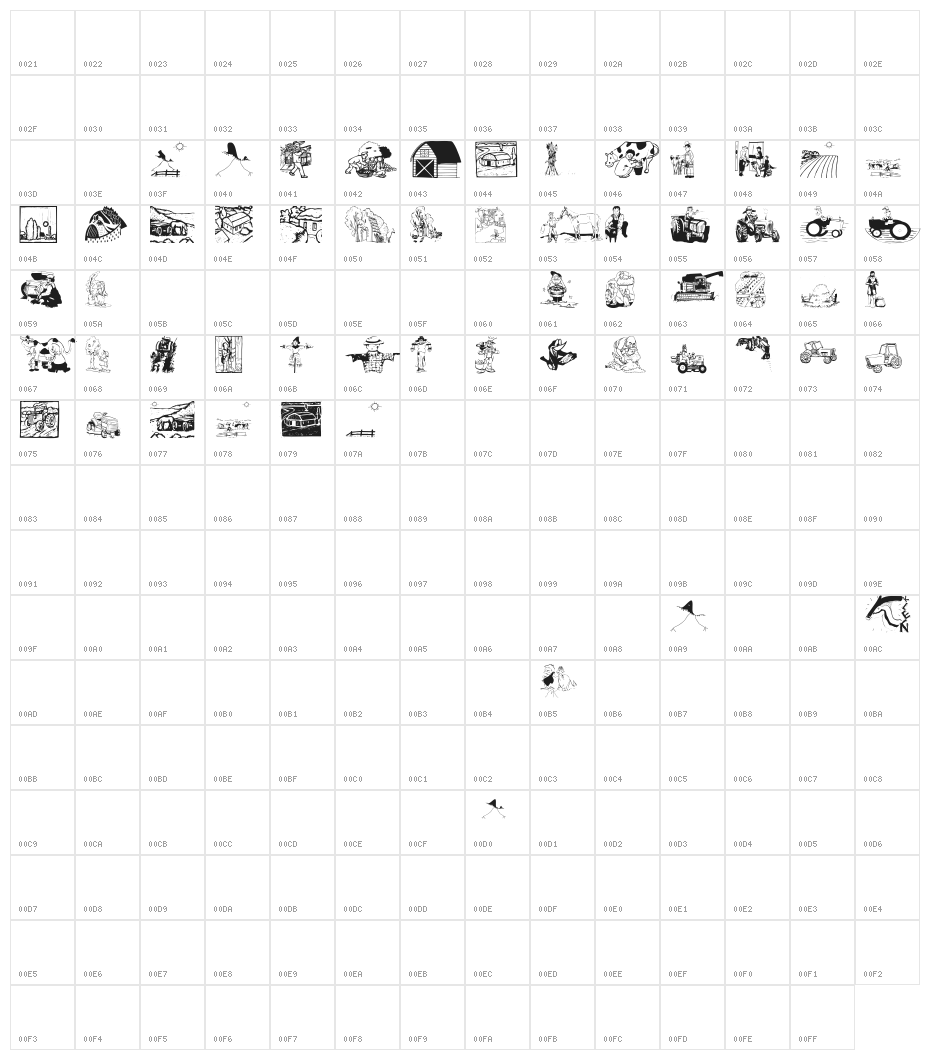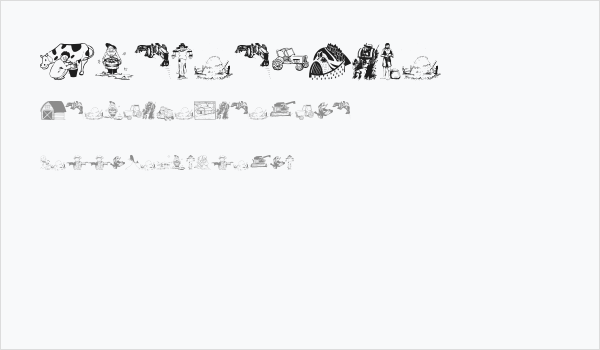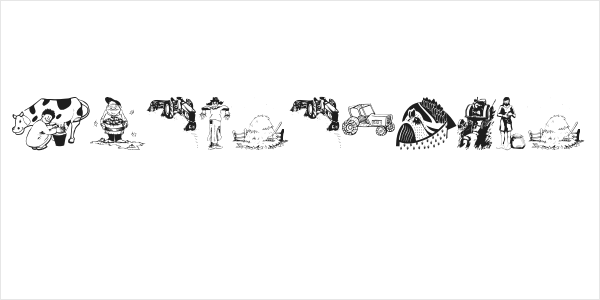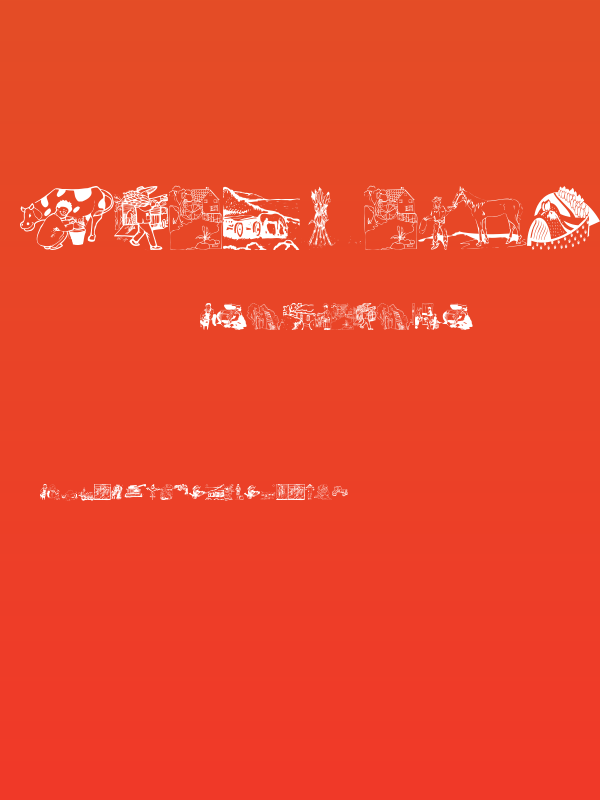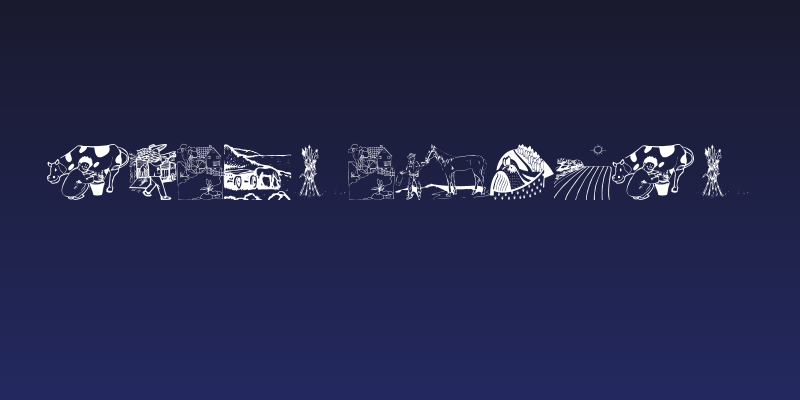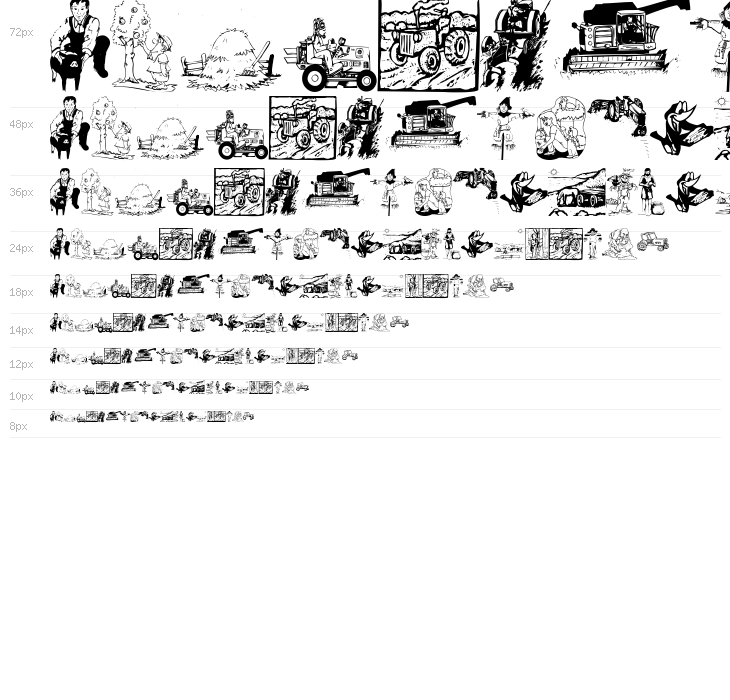
FarmersLife Font
FarmersLife Description
A decorative dingbat font featuring detailed black-and-white illustrations related to farming life, including barns, tractors, animals, farmers, crops, and rural scenes. Each character is represented by a unique farm-themed drawing, rendered in a hand-drawn, cartoonish style.
| Overall Style | Decorative, Cartoonish, Playful |
| Use Case | Illustrative elements, Themed graphics, Decorative accents |
| Proposed Projects | ChildrenΓ’β¬β’s books, educational materials, farm event flyers, themed party invitations, scrapbooking, rural branding, decorative borders. |